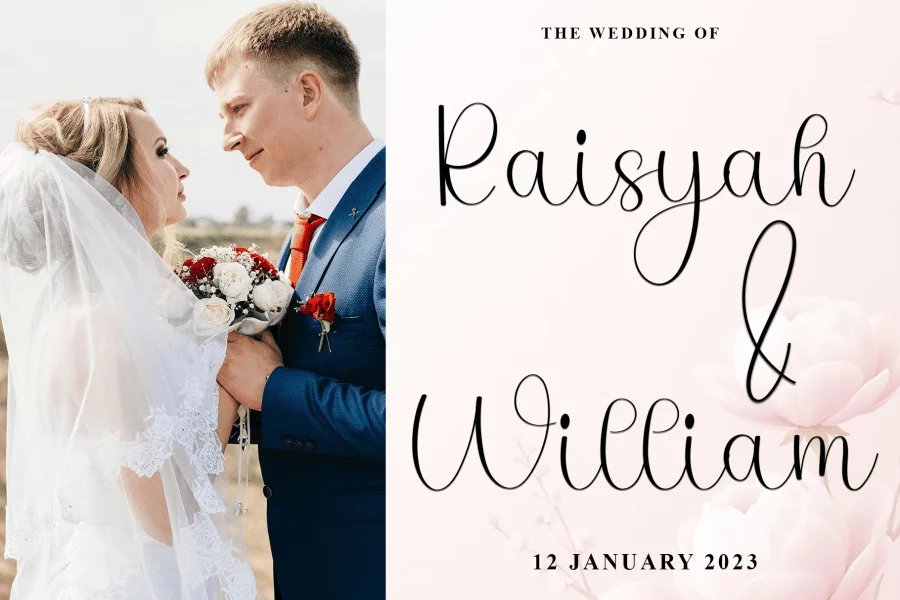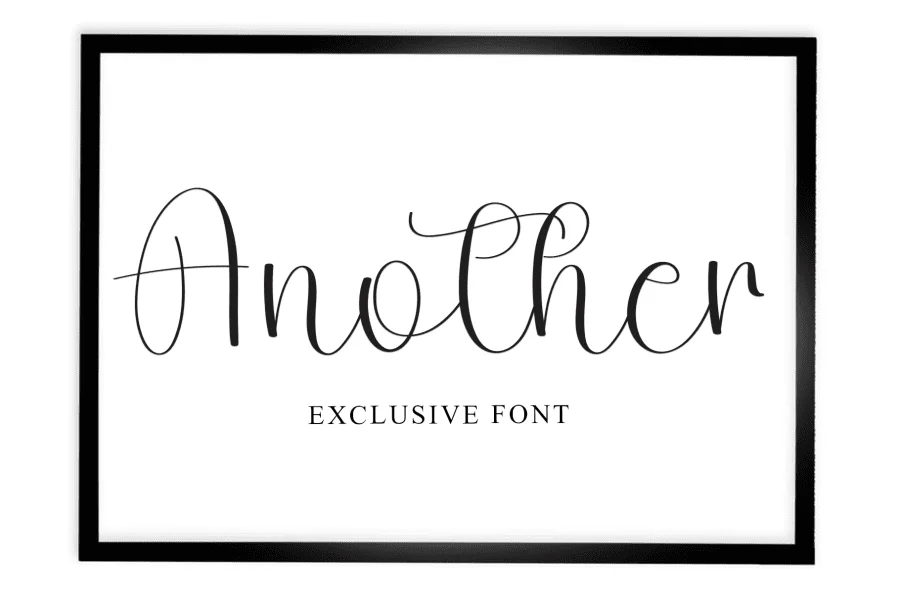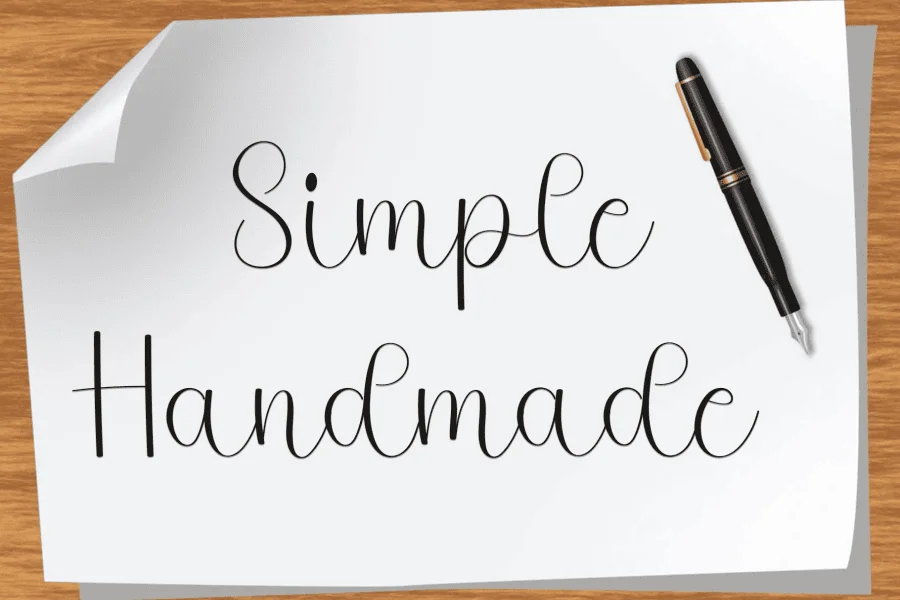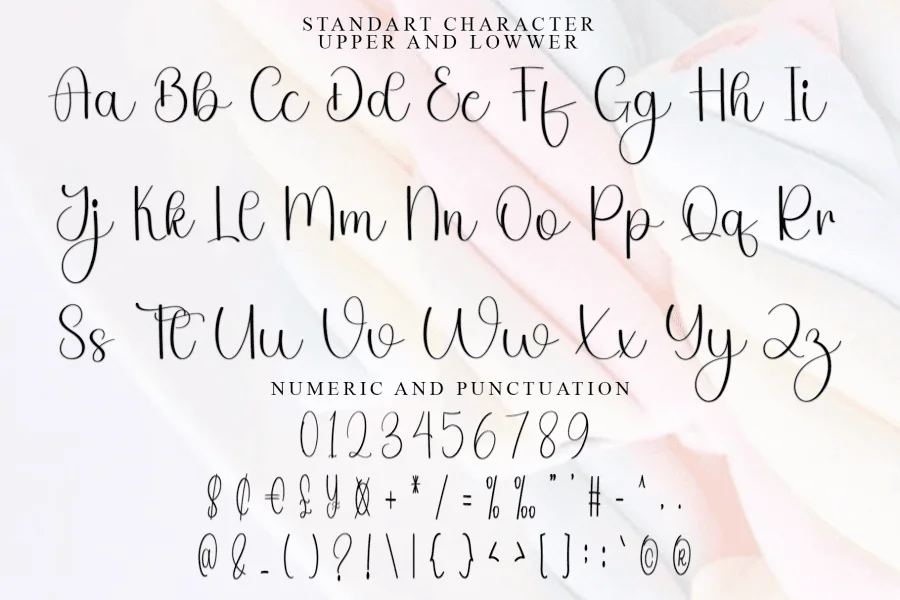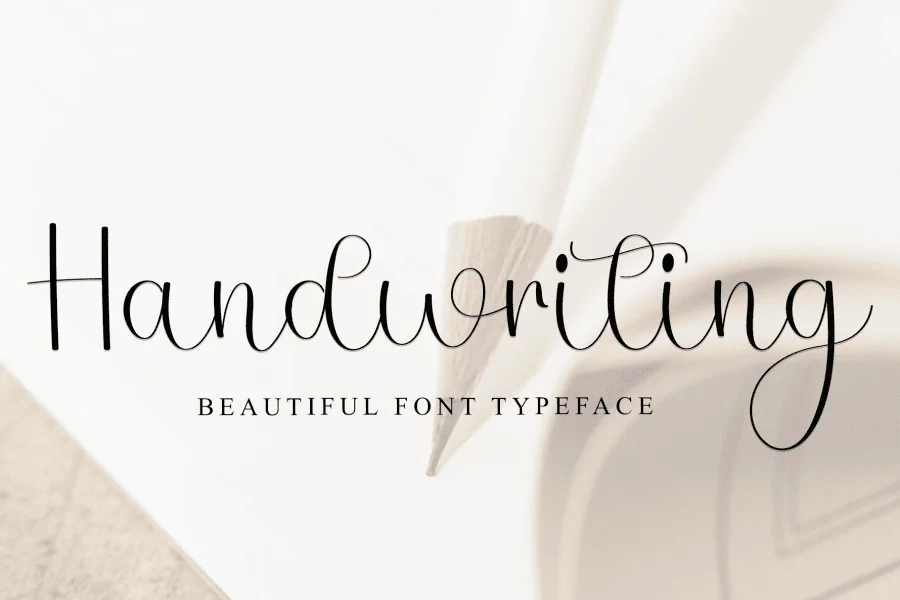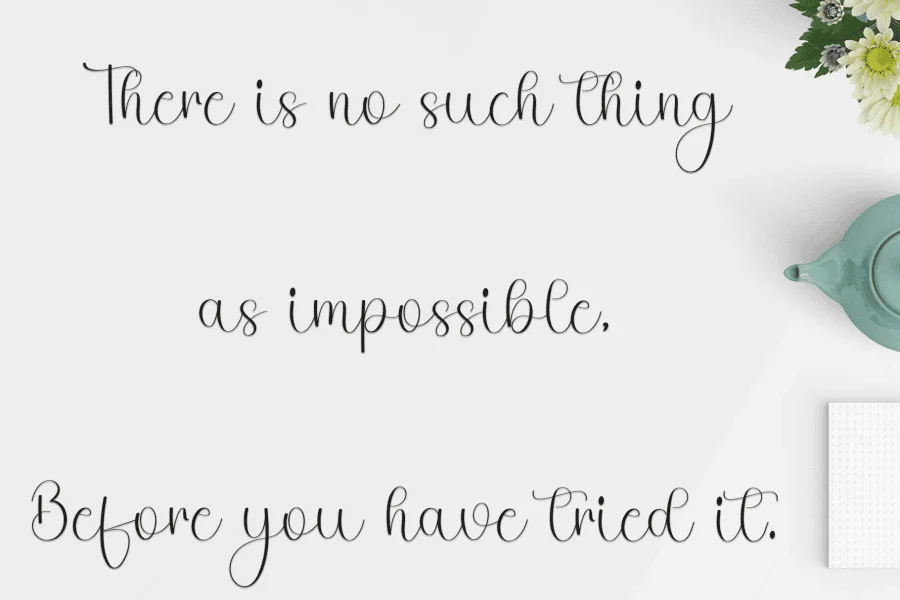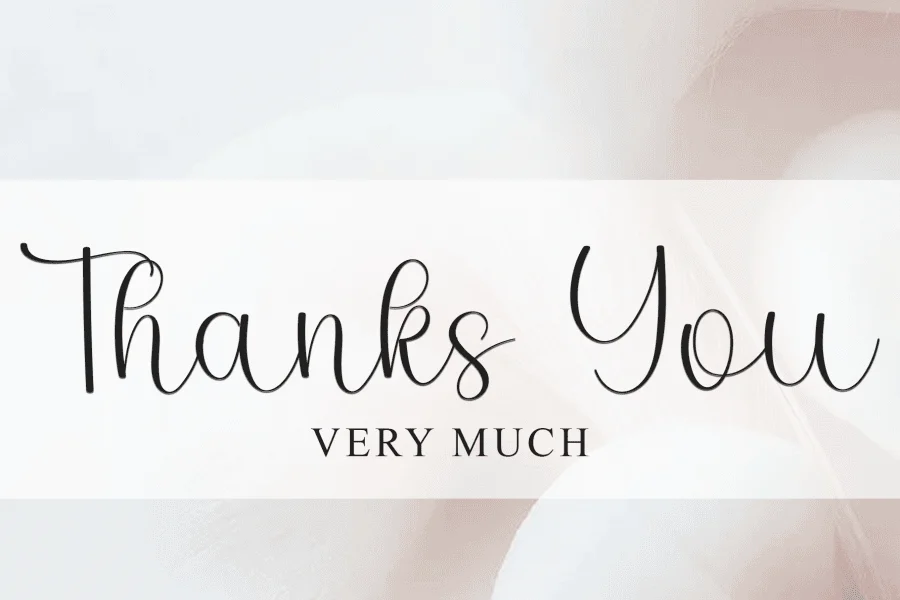
Valentine wednesday is an elegant calligraphy script typeface that exudes a delicate, romantic, and handmade charm. Its structure is defined by a light, monoline weight that maintains a consistent thickness throughout, creating a clean and airy texture. The letterforms are characterized by tall, graceful ascenders and descenders, combined with playful, looping terminals and subtle decorative flourishes. This rhythmic, flowing construction gives the typeface a personal, handwritten quality while retaining a sophisticated and modern aesthetic.
This typeface is perfectly suited for intimate wedding stationery, elegant event invitations, and romantic greeting cards. Its refined yet approachable style also makes it an excellent choice for boutique branding, delicate product packaging, and inspirational quote layouts. Whether used for prominent display headings or subtle decorative accents, it lends a touch of graceful personalization to any creative project.